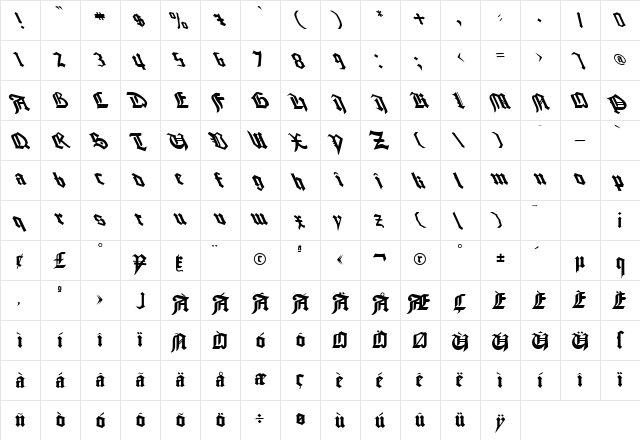
Good City Lefty Not Plain Regular
Design Context for Good City Lefty Not Plain
Good City Lefty Not Plain is a composed and adaptable typeface that performs quietly and consistently across a wide range of design contexts.